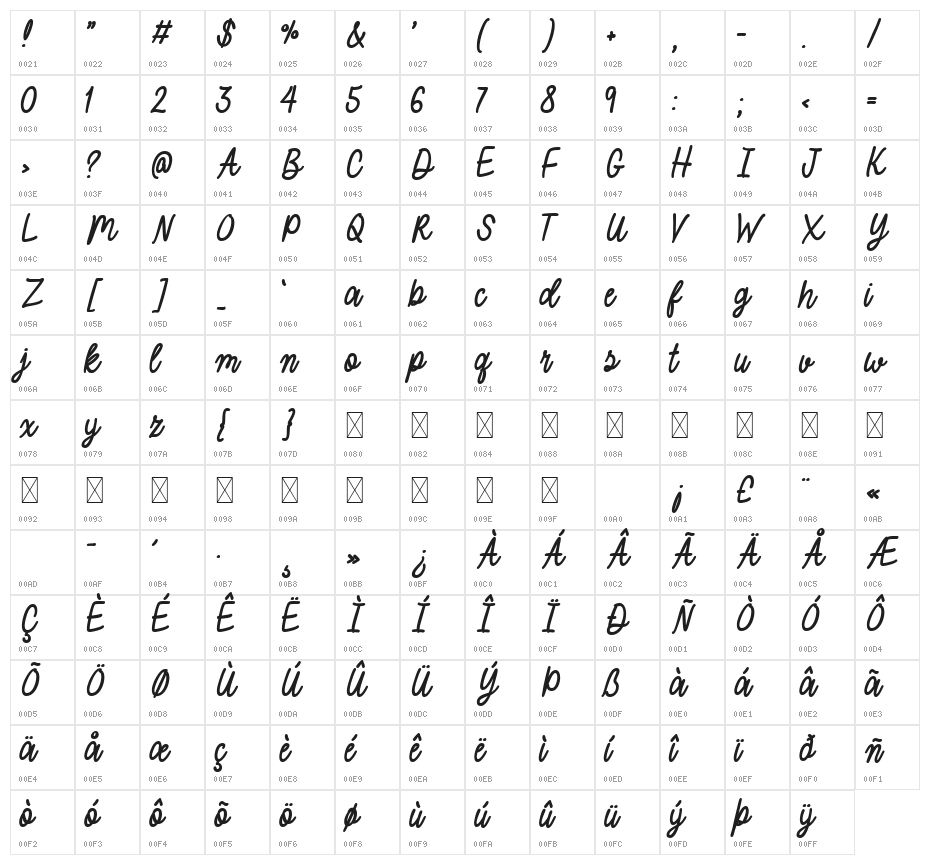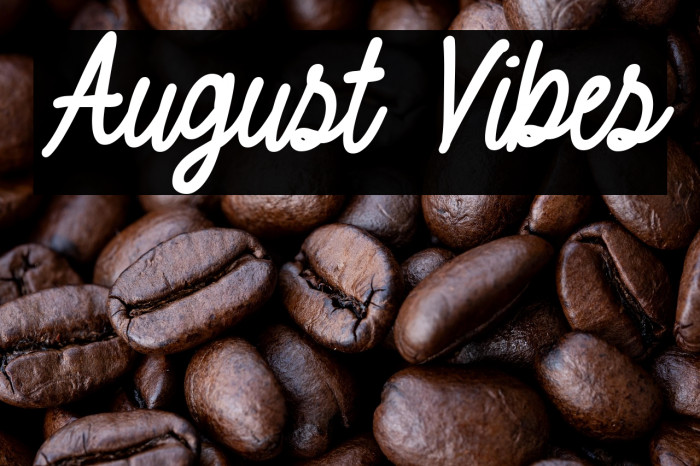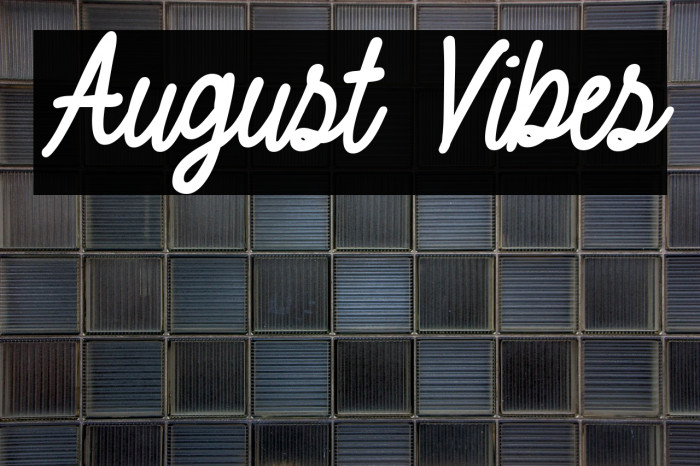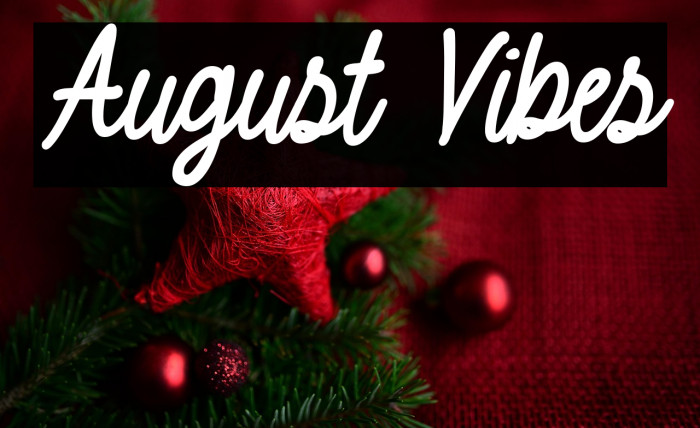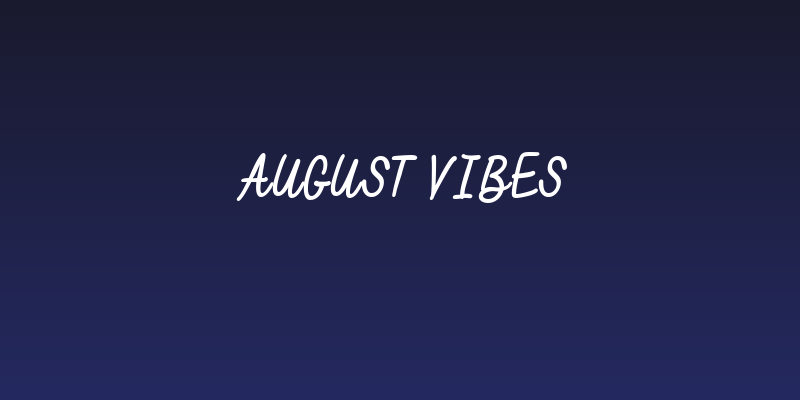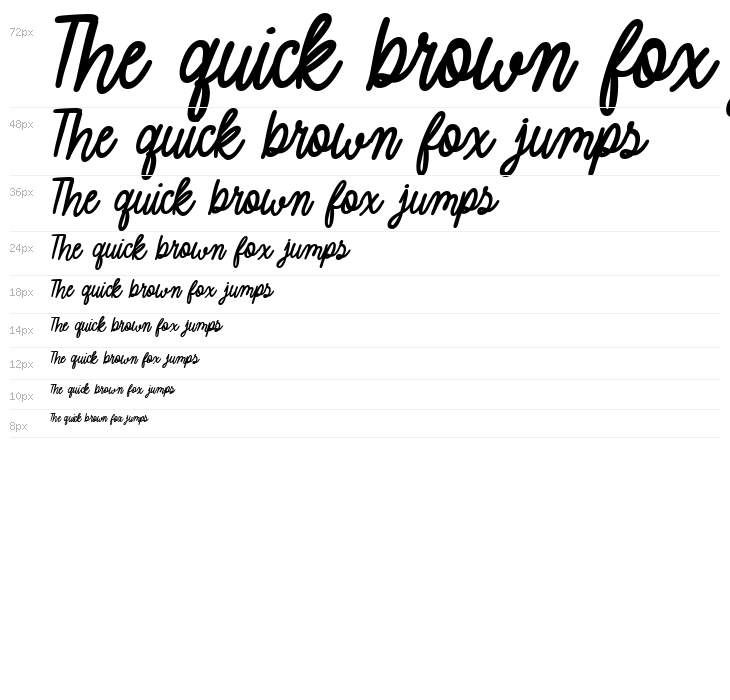
August Vibes Font
August Vibes Description
A casual, handwritten script font with a smooth, flowing style and slight slant, giving it a relaxed and friendly appearance.
| Proposed Projects | Greeting cards, invitations, personal branding. |